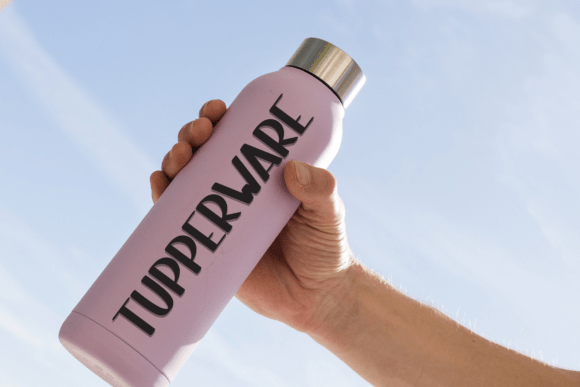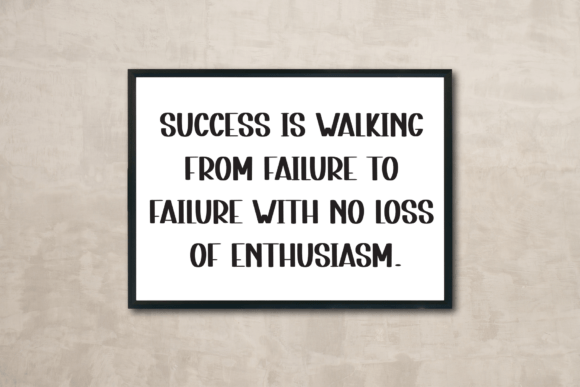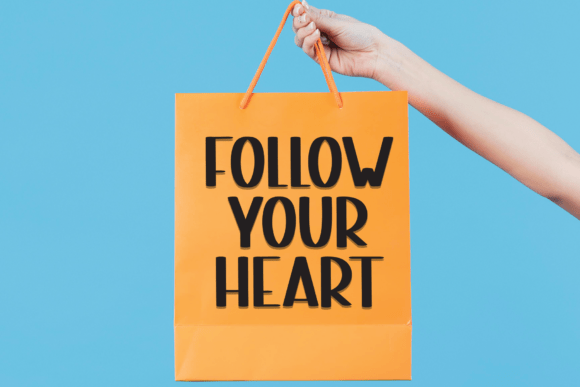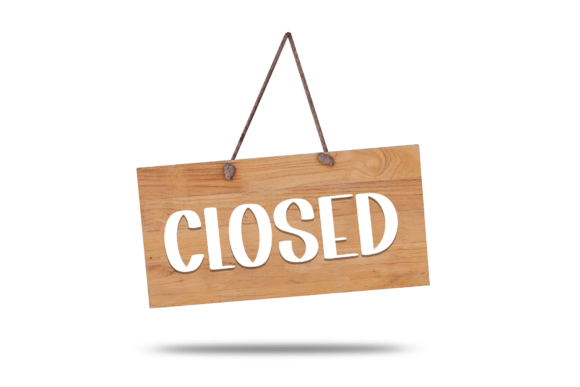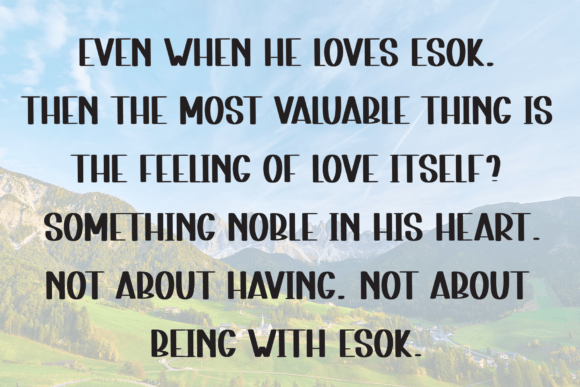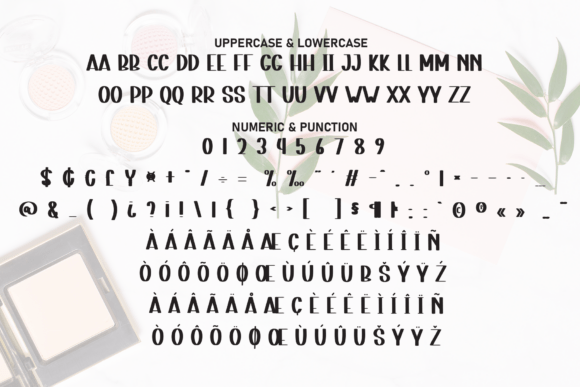
Introduction to Simple Beauty Font
Simple Beauty is a tall, elegant handmade font that effortlessly balances sophistication with warmth.
With its high-impact yet friendly character, itโs ideal for beauty branding, lifestyle blogs, social media posts, and creative design projects that need a soft, approachable touch .
Key Features of Simple Beauty Font
Why Choose Simple Beauty Font?